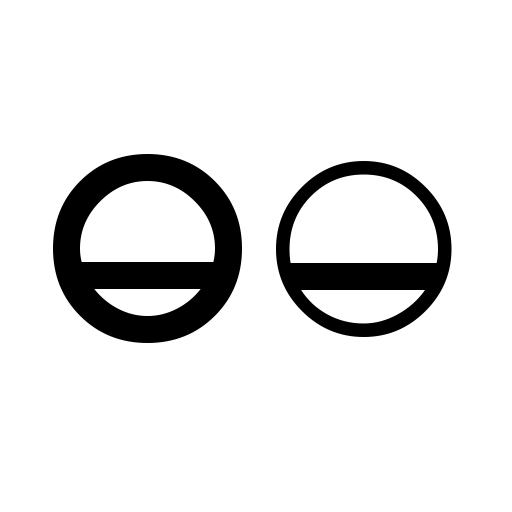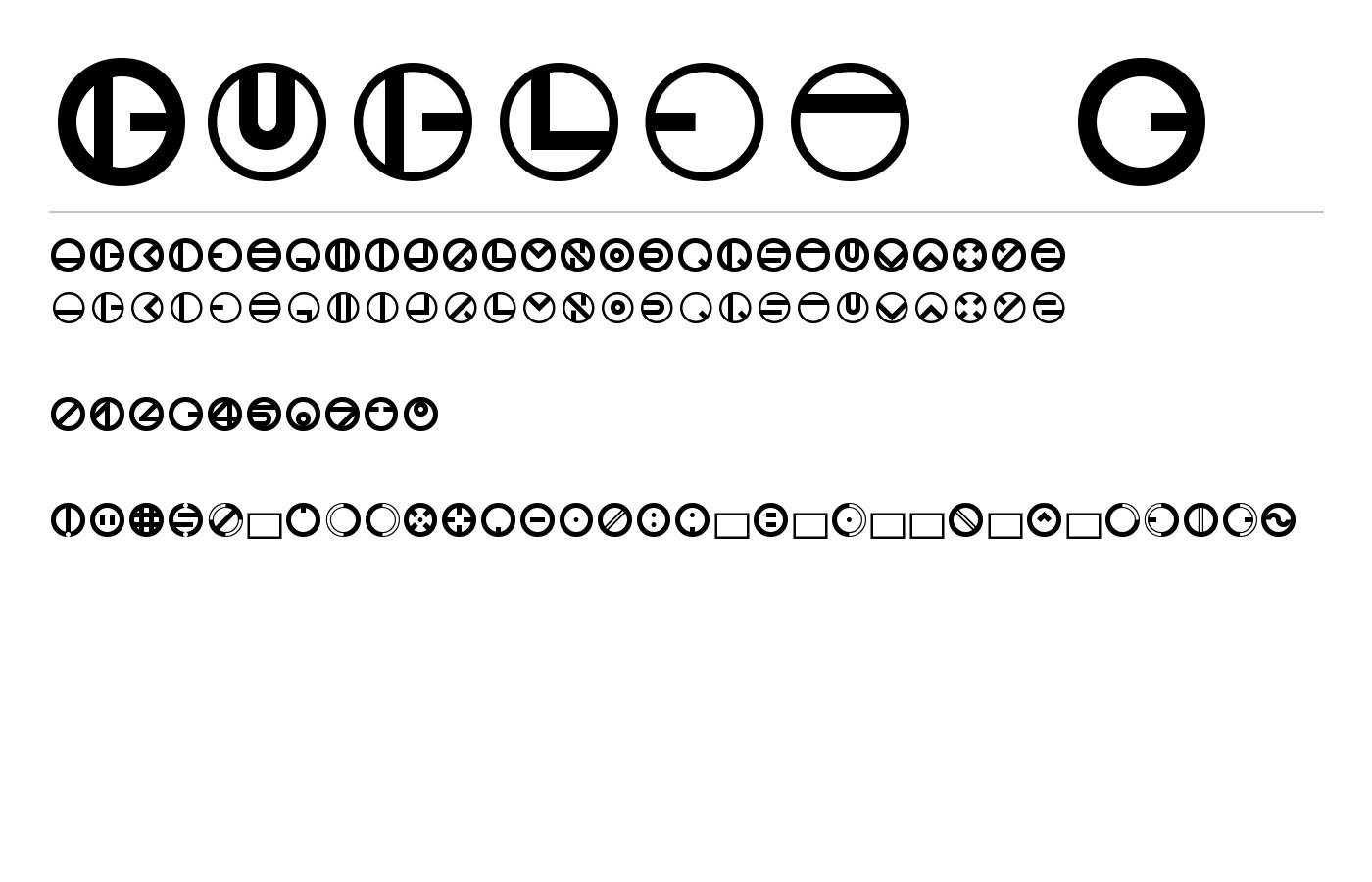
Bublet 3 is a highly geometric, abstract symbol font characterized by bold circular shapes filled with distinct linear and angular elements. It has a modern, futuristic feel with consistent stroke weight and a monochrome style that makes it ideal for creative logos, tech branding, or artistic projects seeking a unique, minimalist aesthetic. This font works best for decorative use where unconventional, eye-catching designs are desired rather than for body text or traditional communication.
Bublet 3 Font
About Bublet 3 Font